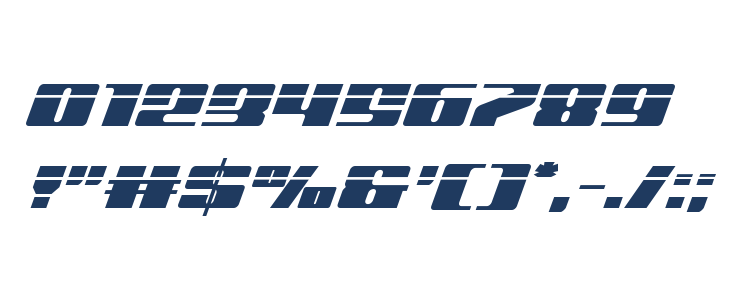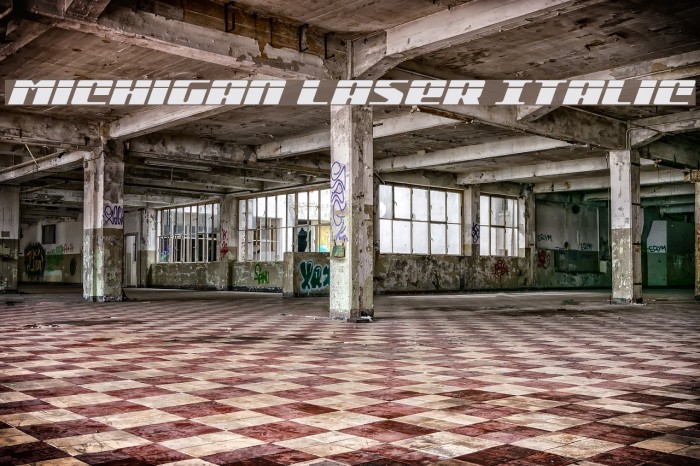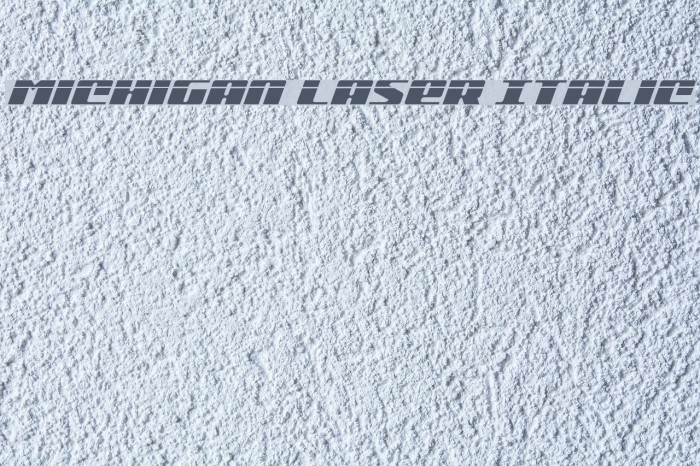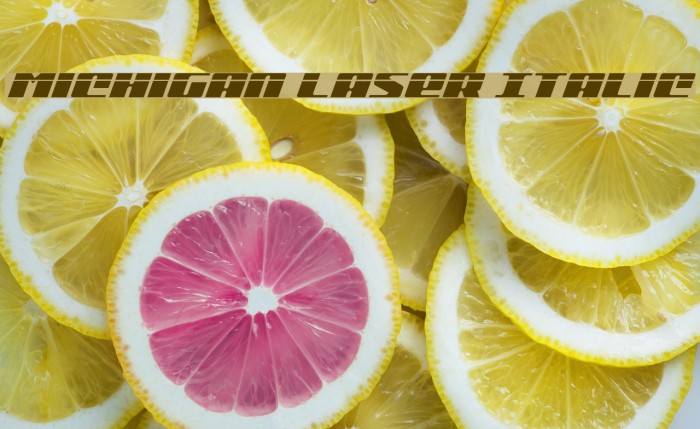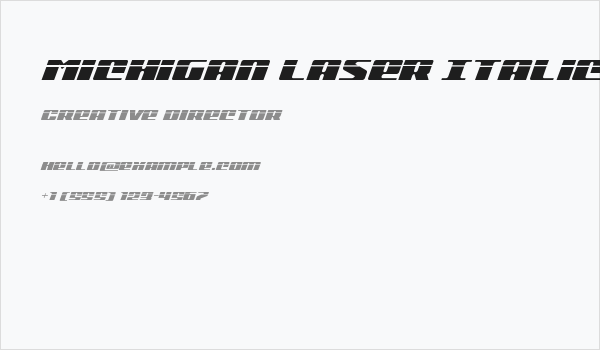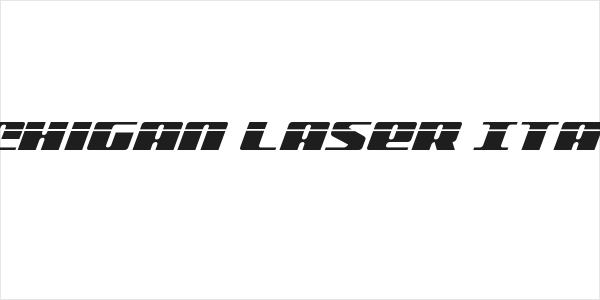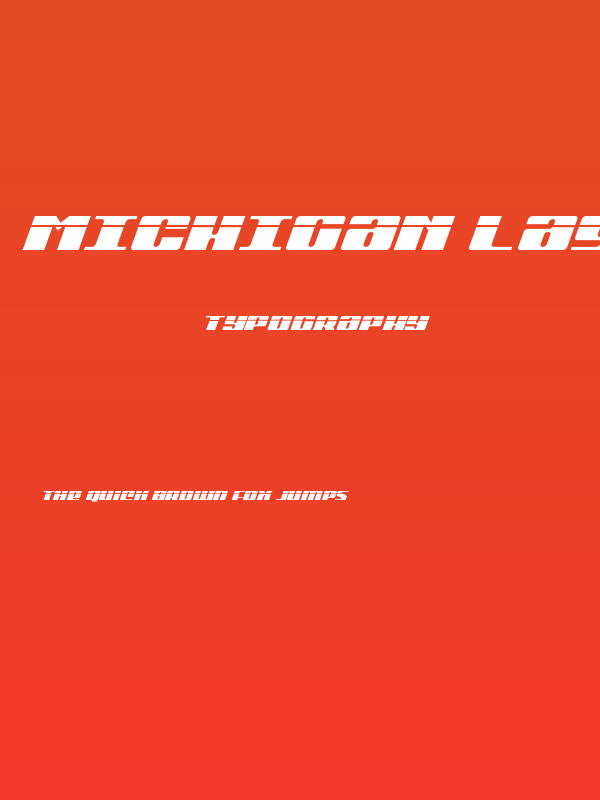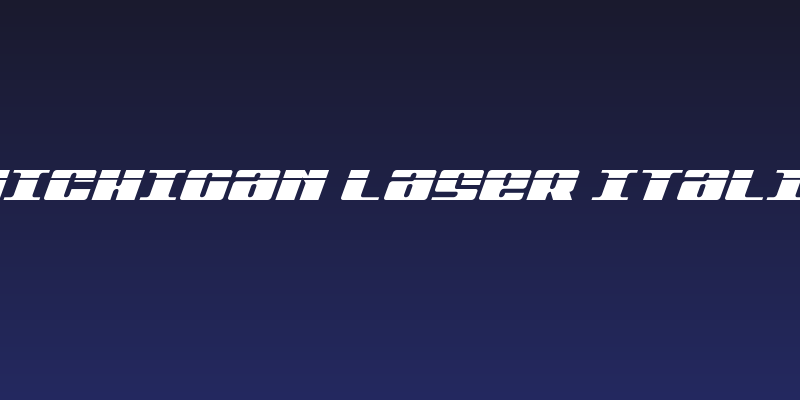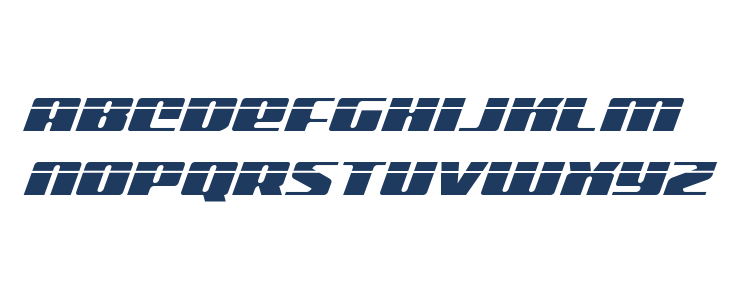
Michigan Laser Italic Font
Michigan Laser Italic Description
This font features a bold, italicized style with a futuristic and dynamic appearance. The characters are designed with sharp angles and a slanted orientation, giving a sense of motion and speed. The uppercase and lowercase letters maintain a consistent style, with a strong emphasis on horizontal lines and geometric shapes. The numbers and special characters are equally bold and angular, complementing the overall aesthetic. This font is ideal for projects that require a modern and edgy look, such as technology branding, sports team logos, or action-themed posters.
| Use Case | Logos, Headlines |
| Proposed Projects | Ideal for technology branding, sports logos, and action-themed posters. |